Freaky Font Letters
I Tried Every Freaky Font Generator So You Don’t Have To (Here’s What Actually Works)
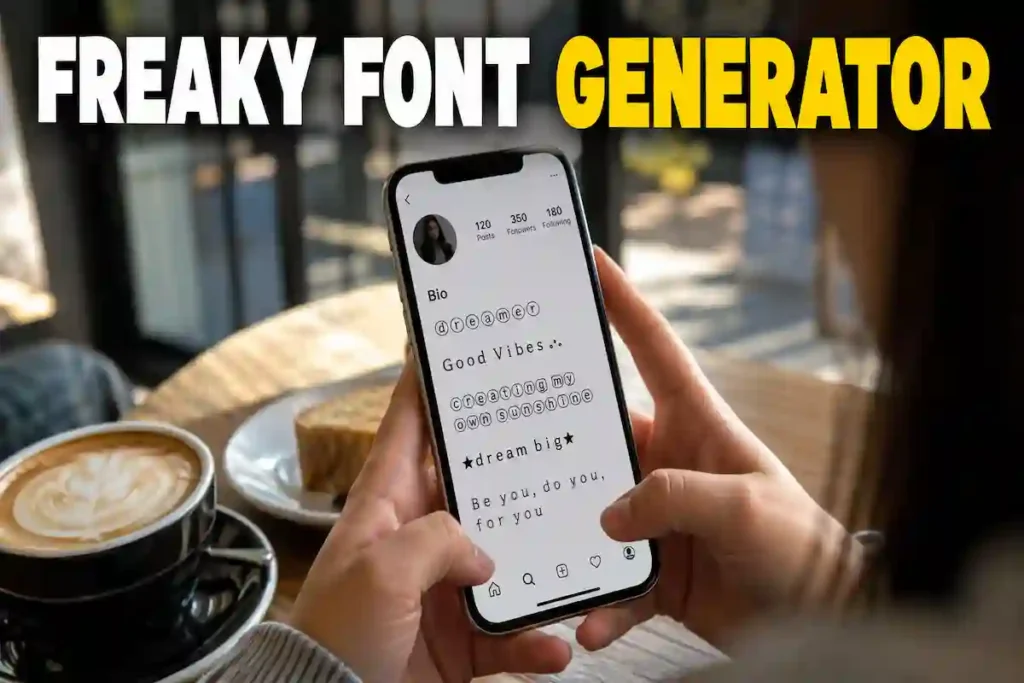
Freaky font. That’s all I searched for on Google at 1 AM when I came across my cousin’s Instagram bio: 40 bold, unnaturally curvaceous, nauseatingly epic words which I was convinced had been stolen from the pages of a horror film poster.
What she was actually doing wasn’t some stealth app, just copying text. From a page, no download, no sign up needed, just click and paste.
Ever since I started playing with freaky font generators (bios, group chat names, a handful of things for clients where a flashy headline just couldn’t cut it), I’ve garnered a few war wounds. How about that?
What Is a Freaky Font?
What no one tells you up front: a freaky font isn’t a font, per se.
Not in the “download this special program so you can use this font” way. What you’re actually after is Unicode, that enormous library of characters all phones and browsers and software are used to reading.
Somewhere in that library are symbols for mathematics or characters for every language or extra symbols that happen to look like soiled or font or gothic or constant ones. A freaky font generator is not creating any font file.
It is replacing your normal ‘a’ with such a wildcard Unicode usage. That’s really good news. It’s only text, so you can paste it literally anywhere: Instagram, TikTok, Discord, WhatsApp, anything. No app permissions, no font licensing issues, no compatibility nightmare with your phone operating system.
Now that you’ve decided on the style that best reflects your username, bio, or thumbnail, there is no better, much easier, or quicker way to test how a few font variations will look next to each other than using the freaky font generator itself! That’s because you can just scroll through the different options and get a preview each time.
How I Actually Use Freaky Font
To be honest, I don’t use Freaky Font text all the time (that would be too tiring for readers, like a ransom note). Instead, I normally use it in the following three situations: First, profile names on TikTok, or Discord in particular.
An elaborately styled name looks dramatic against a table-full of other plain names.
Second, short captions/hook statements where I want the initial few words to cut through the feed before the viewer scrolls by. And third, texts in a thumbnail where a put-on font style really does read differently from regular Arial and can bump up click-through rate slightly.
What I’m not doing is writing packets of absurd type. It has a length that is invulnerable to rapid trawling, and a few sites will be trawling through lengthy rooms of chosen Unicode to spam. Shorts are fine. Walls of it are not.
Step-by-Step: How to Generate Freaky Font Text
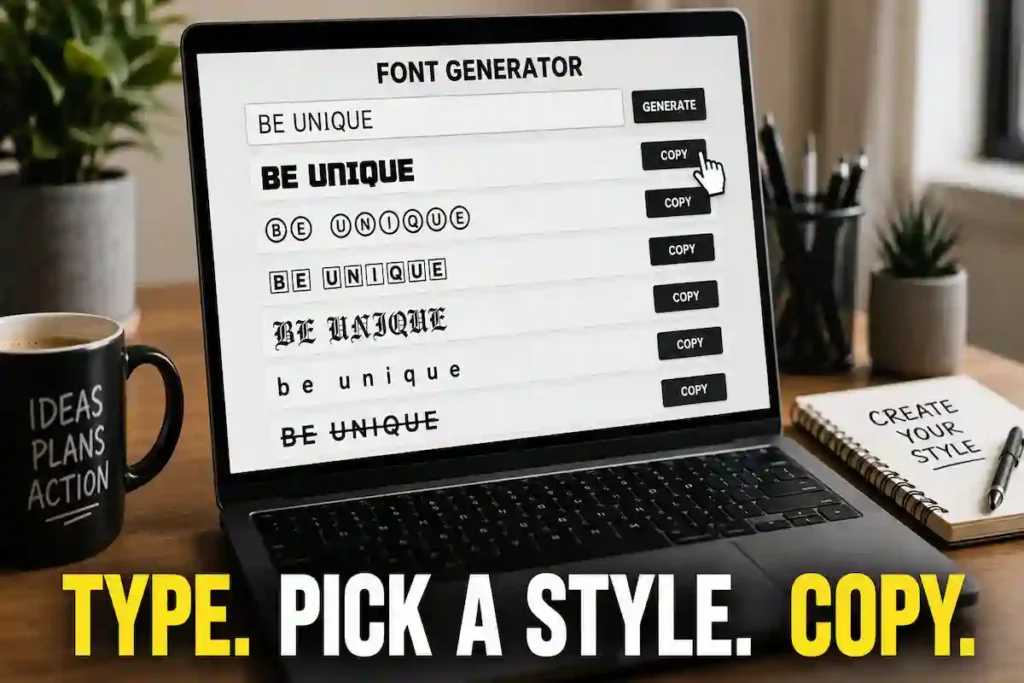
If you’ve never used one of these before, it’s actually really simple.
- Open a freaky font generator. Now, in the box at the top, type in anything. It can be your name, caption, whatever you’re trying to do.
- Keep scrolling. Most of the generators give you anywhere from 8-20+ different variations immediately: bold script Gothic double-struck, circled letters, etc.
- Click copy on the one that you like. No manual highlighting text, no right-click menus.
- You can use it just about anywhere. Copy and paste it into anything that accepts text: Instagram bio, TikTok username field, it’s perfect for Canva design.
And that’s it. Probably fifteen seconds over and done if you know what to select.
Mistakes I Made With Freaky Fonts (So You Don’t Have To)
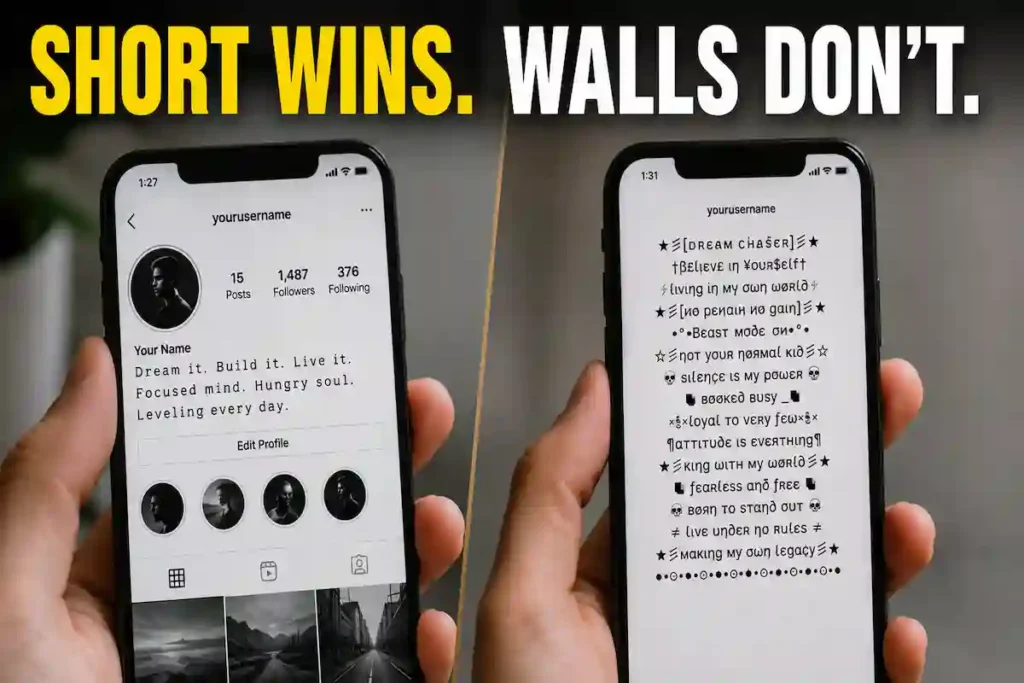
Made every mistake you possibly can on this stuff, so let me save you some headache. Number one: special Unicode characters in a username field that can’t properly render the Unicode font (e.g. “fancy font” in a username field that’s not properly dual-byte-enabled). I even tried to set a cool double-struck font as my Discord nickname, but another person’s older phone just displayed a row of empty boxes.
Not cool. I looked jacked up. Make sure you’re in a while permanent server. You test it on a few phones before you get too freaked out.
The second mistake was pasting the freaky font text into the search box or contact form on a site and expecting it to search just like regular text. It didn’t. Sometimes a search engine or site search engine doesn’t pick up the styling, so the freaky font isn’t interpreted as the same character.
Result: no hits. Use the freaky font for decoration or casual spaces only, not between the search box and the OK button.
And third (but this one is a little painful), I once used a font that was so stylized in an Instagram caption that I thought it would actually be trendy. It resulted in a decrease in traffic. And really, a lot of people just can’t read huge words in freaky fonts. Mostly people use screen readers or aged electronics.
A little yes. Search engines generally won’t index creative Unicode crap (copy and paste any article from a friend with “freaky font” and see if it comes up in the search results).
Use it in areas of your site without SEO hopes: bios, testimonials, applause pages- not in titles you want ranked.
Go for a weird font generator. Enter your text once, and instantly receive a menu of alternative styles to copy and paste, none of the tiresome character-by-character searching.